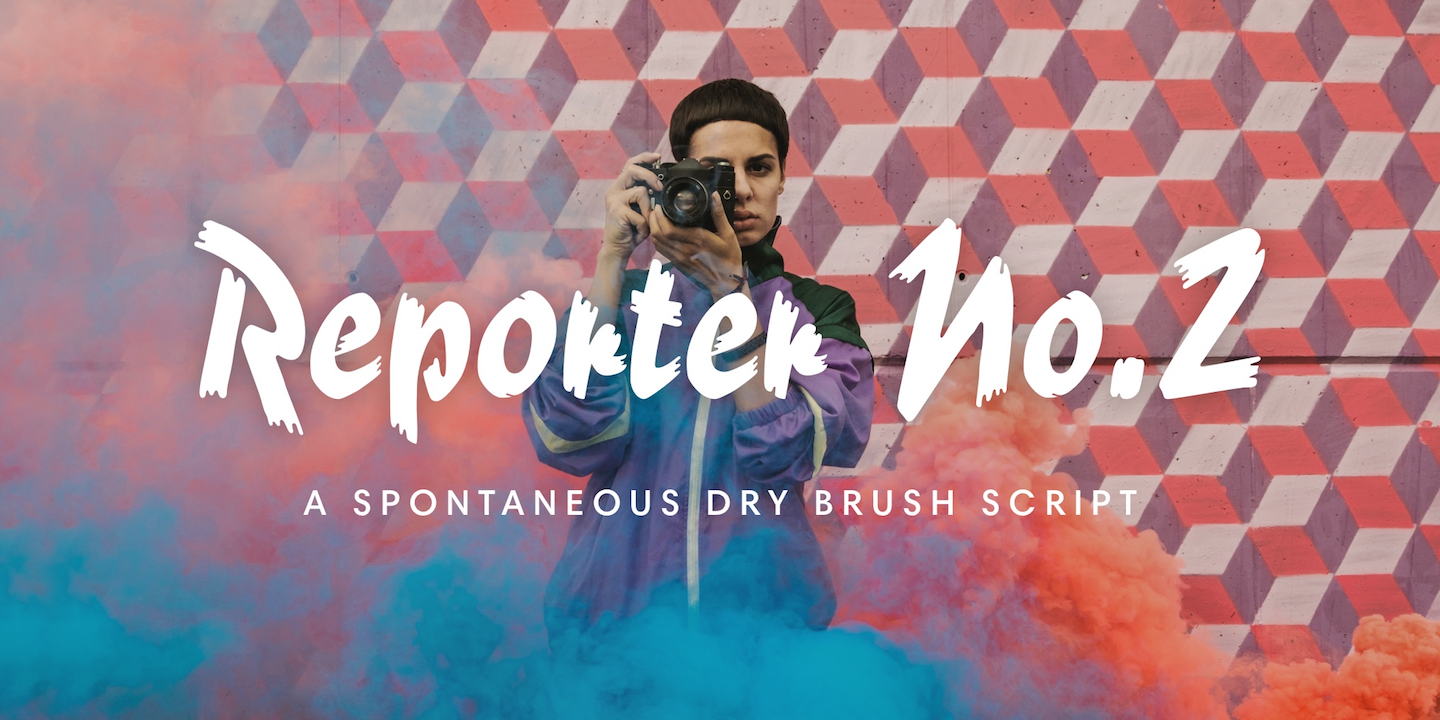
Carlos Winkow
Carlos Winkow designed Reporter™ in 1938 for the Wagner foundry. The strokes of this interesting script have the texture of dry brushwritten letters. The alignment is slightly irregular, giving it a spontaneous feeling. is a slightly simplified version of the original Reporter, without the numerous small white strokes inside its stems, which gave the original a scribbly effect. The font is bold and informal; it works well in signs, posters, and other display uses.